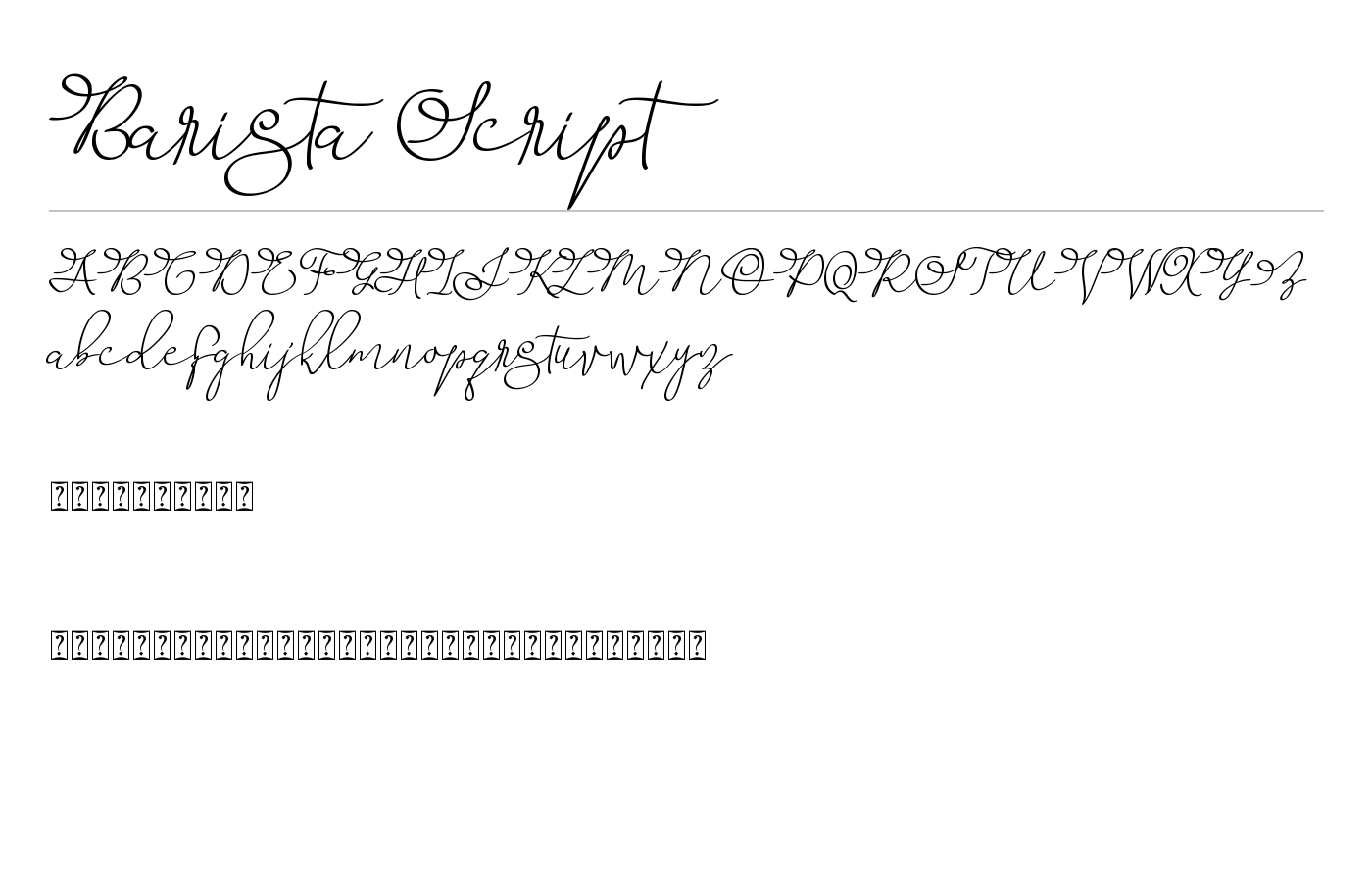
Barista Script is an elegant, delicate script font characterized by its fine, flowing strokes and graceful, hand-drawn appearance. With its high contrast and artistic flourishes, it exudes a sophisticated yet approachable charm, making it ideal for invitations, branding, and creative projects that seek a personal, stylish touch. This font shines in contexts where a refined, handwritten feel adds warmth and personality.
Barista Script Font